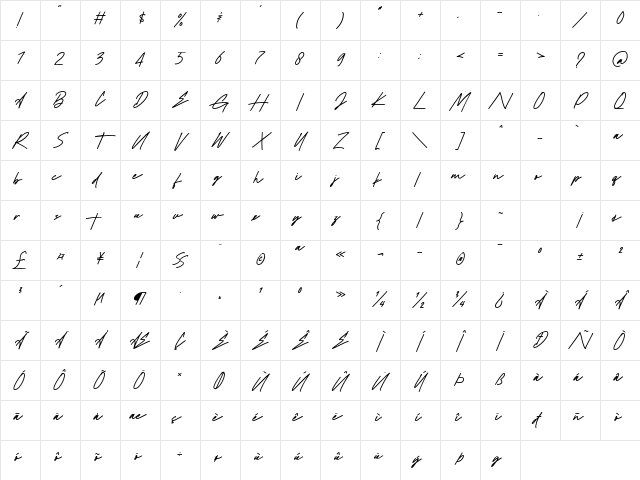
Complete Rationality Grateful Regular glyph index. Displaying only characters natively supported by Rationality Grateful Regular font.
Rationality Grateful is a composed and adaptable typeface that performs quietly and consistently across a wide range of design contexts.